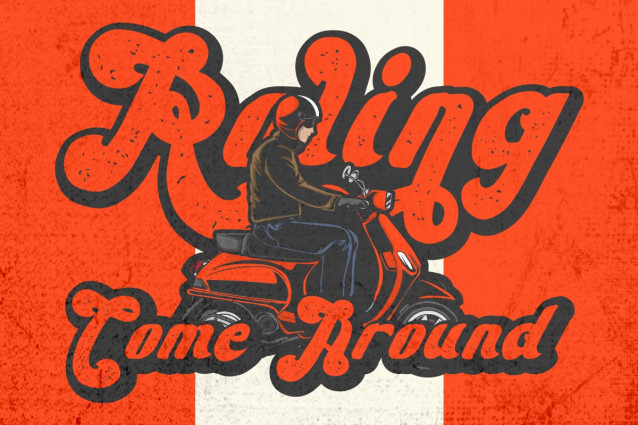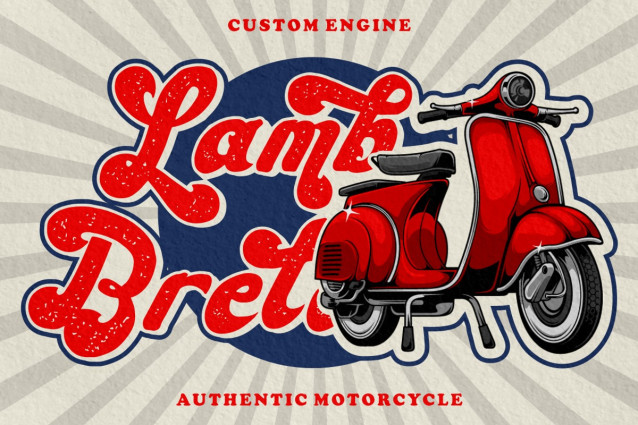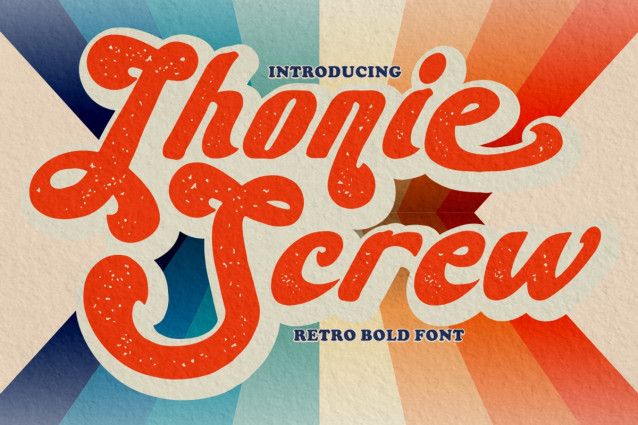
Jhonie Screw Font
Jhonie Screw Font – Retro Bold Font. This carefully designed digital typeface captures the essence of bold retro vibes infused with a vintage charm, evoking a groovy and classic aesthetic. Boasting an extensive array of alternative characters, Jhonie Scrrew becomes an all-encompassing font choice, tailored to your creative needs. With dual variations, the clean and texture versions, this font offers versatility that spans across design projects. Ideal for logos, labels, stickers, titles, headlines, posters, banners, and more, Jhonie Screw is your ticket to a captivating retro-inspired design journey.